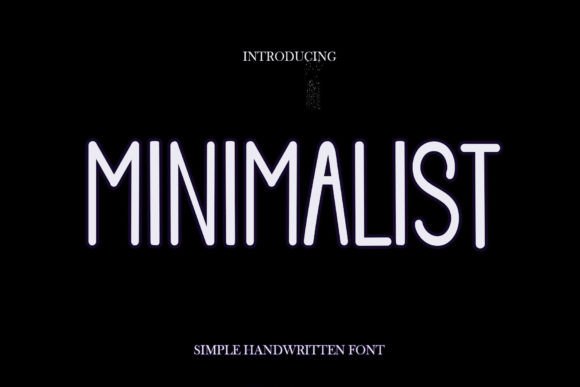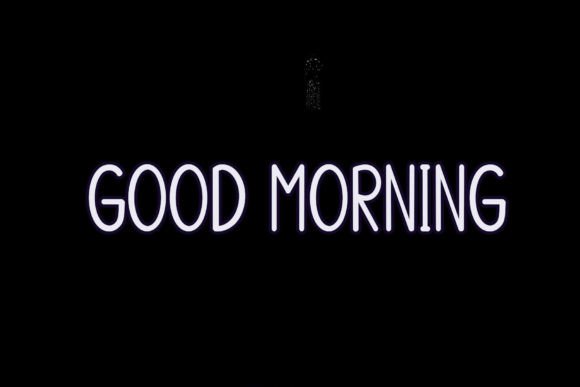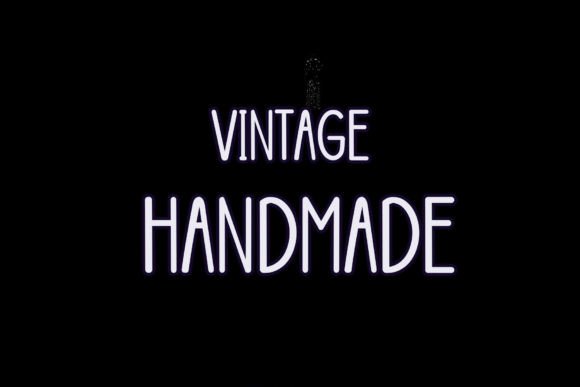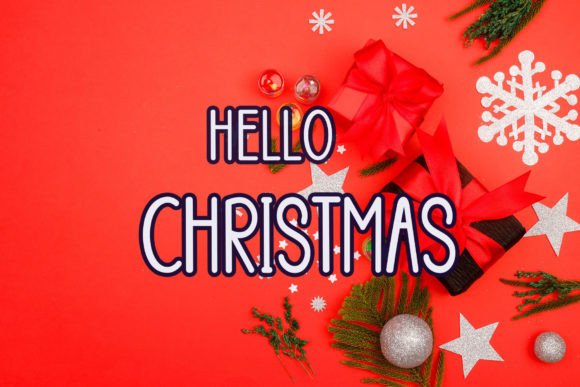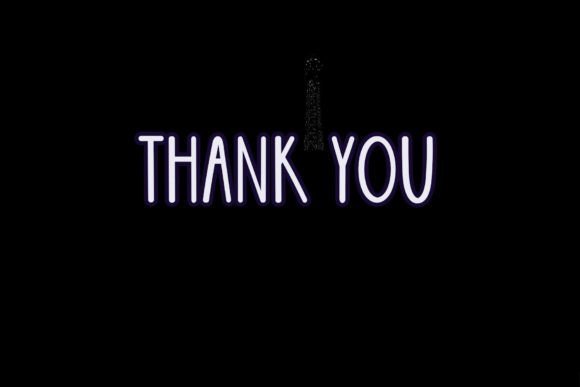
Minimalist Font
About Minimalist Font
Minimalist is a neat and beautiful handwritten font described by an elegant touch, perfect for your favorite projects. Fall in love with its incredibly distinct and timeless style, and use it to create spectacular designs!